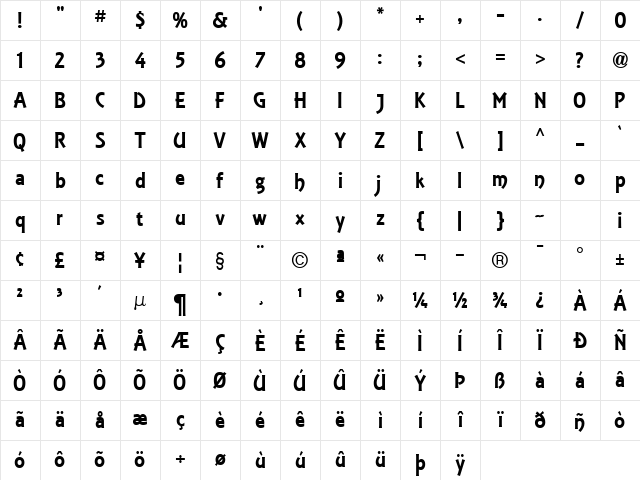
Equinox ICG Regular Free Font
Equinox ICG Regular
Design Context for Equinox ICG
Equinox ICG is a composed and adaptable typeface that performs quietly and consistently across a wide range of design contexts.